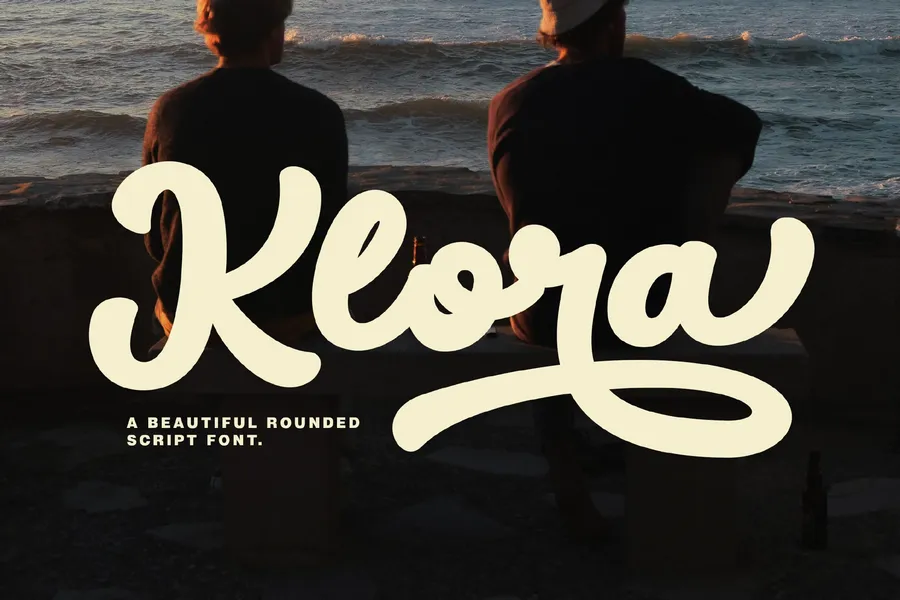
Klora Script Font
KLORA – A Charming Handwritten Script with a Smile
KLORA is a delightful rounded script font that blends soft curves with a playful, hand-drawn feel. Inspired by vintage lettering, it adds warmth, personality, and a touch of whimsy to your designs. Whether you’re creating logos, packaging, quotes, or anything with a breezy vibe, KLORA makes every word feel more personal.
Font Features:
Uppercase & lowercase letters
Numbers & punctuation
Ligatures & stylistic alternates